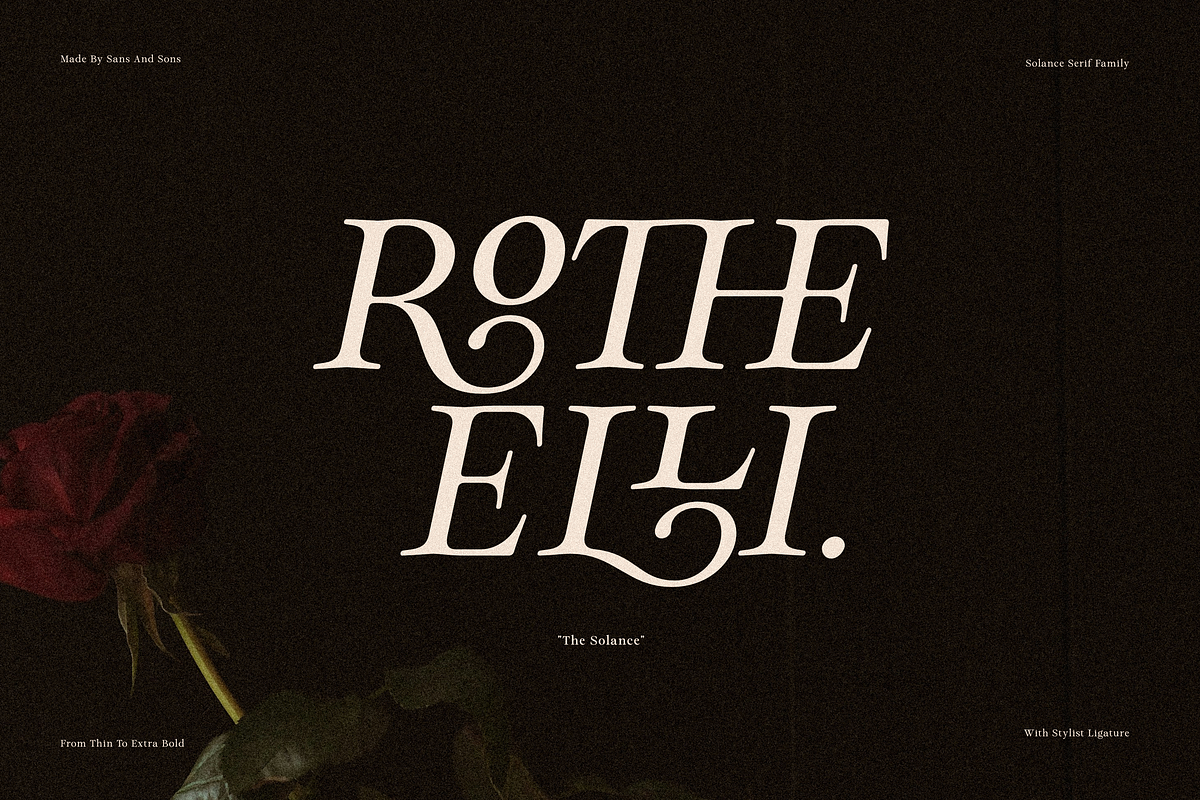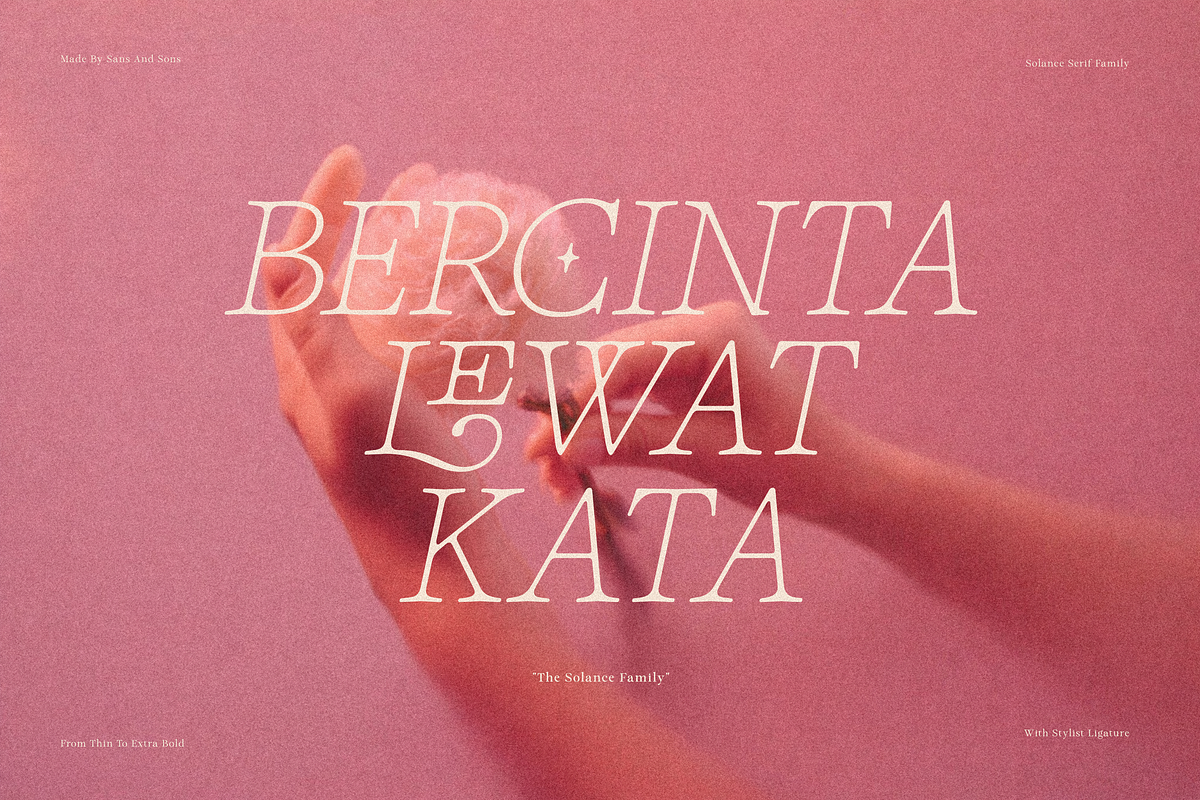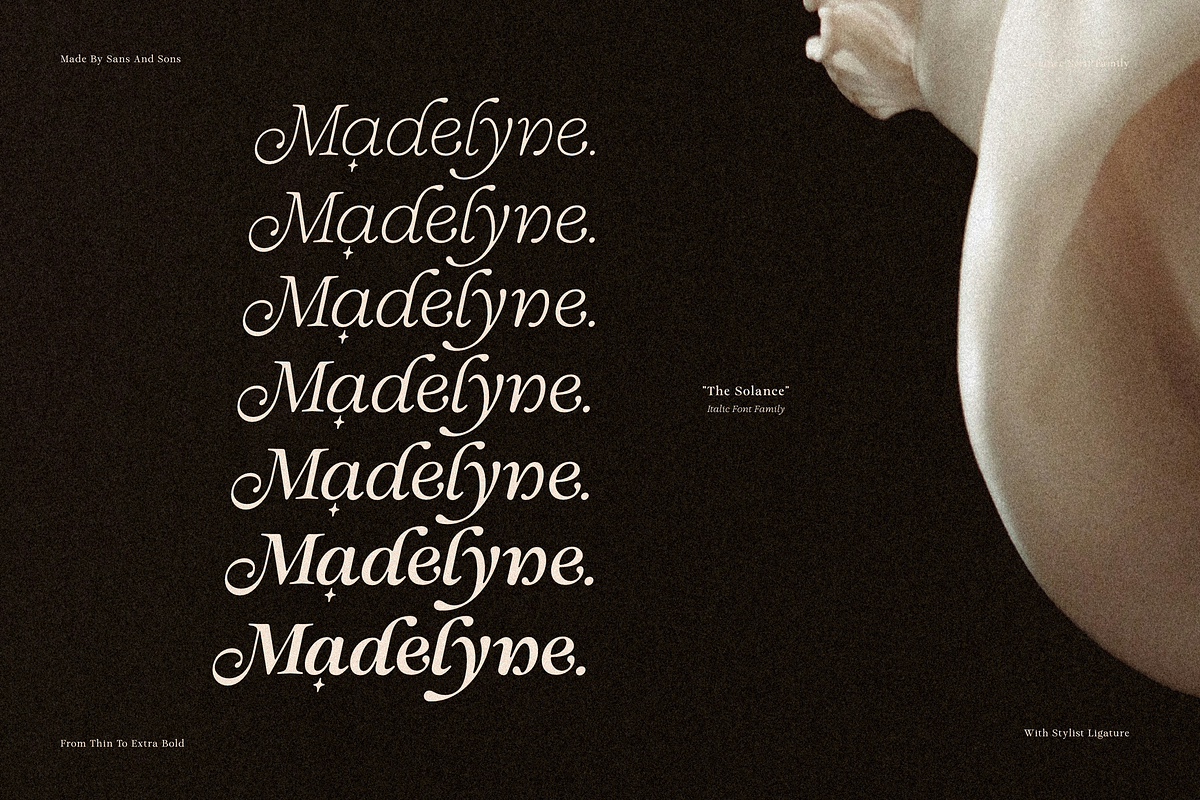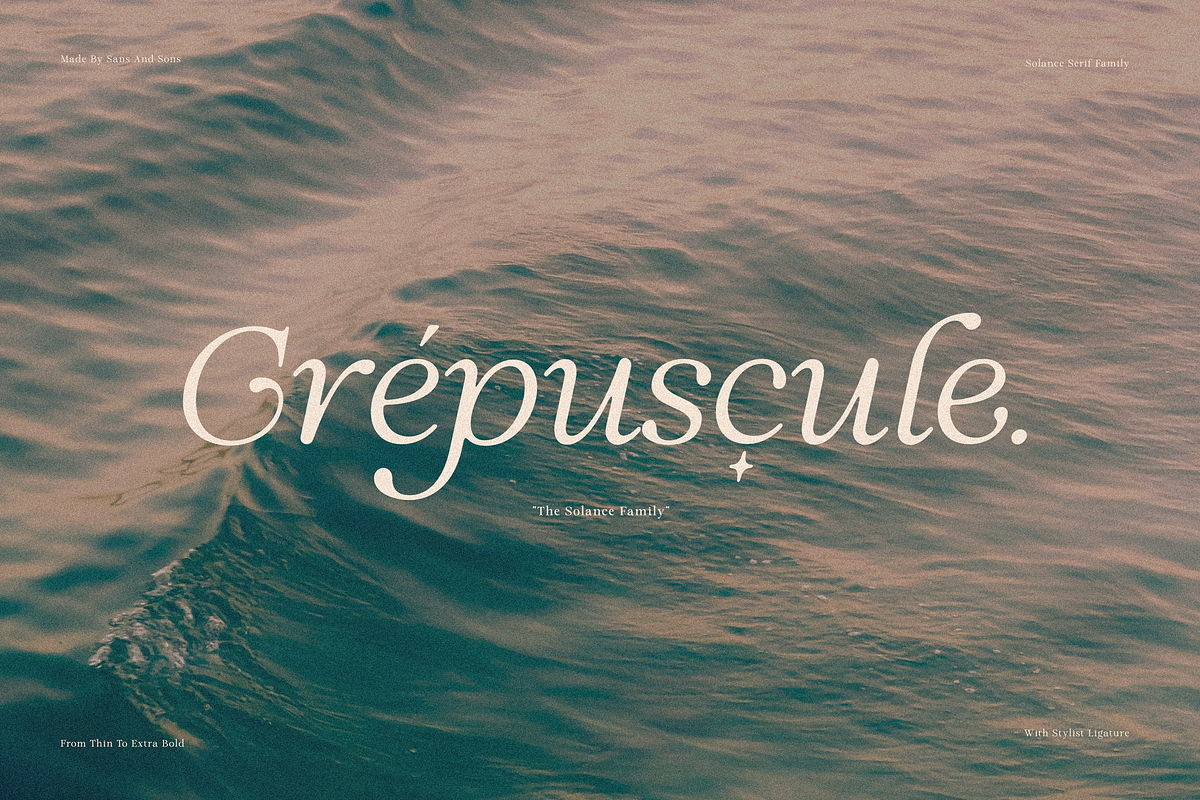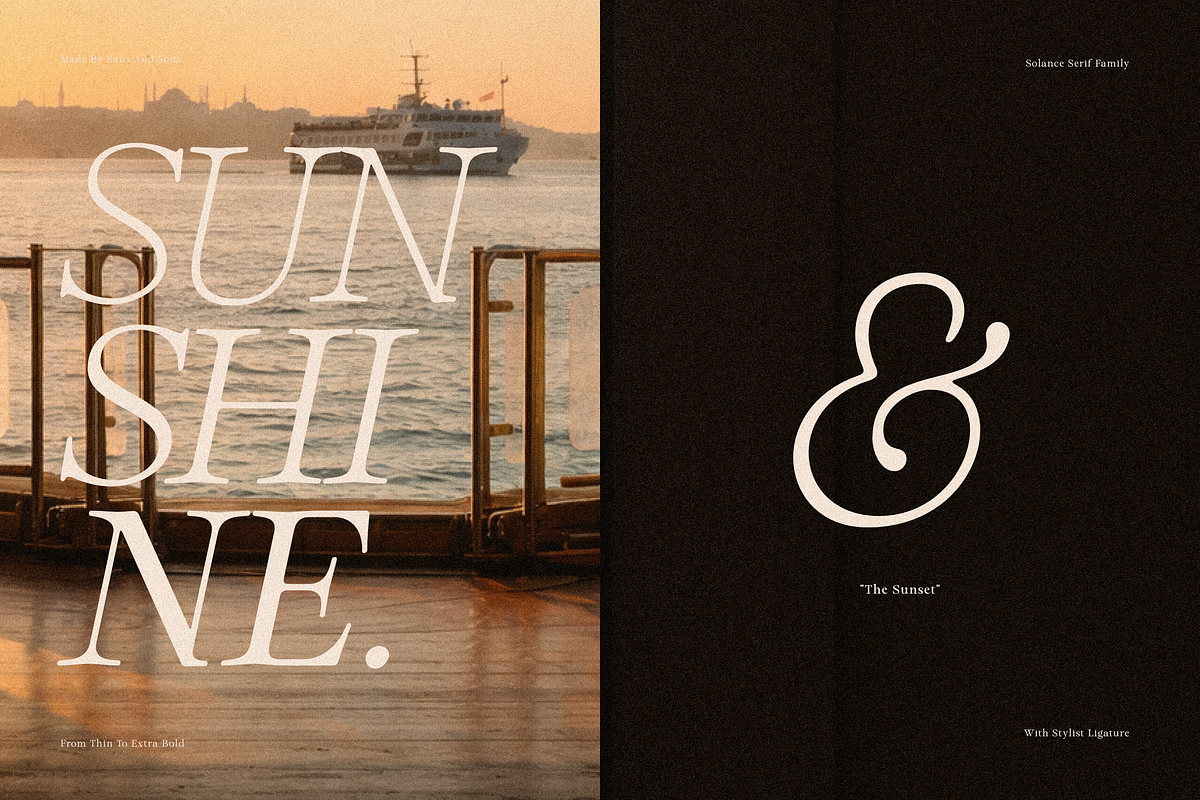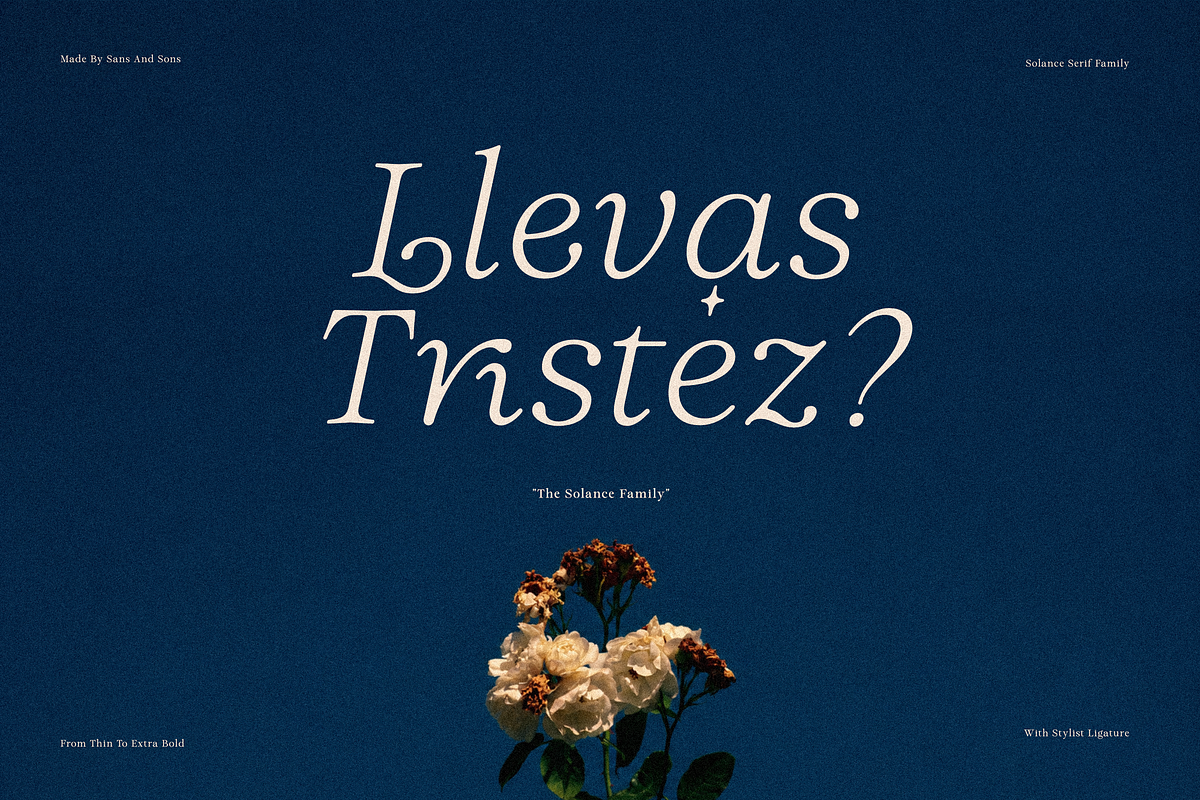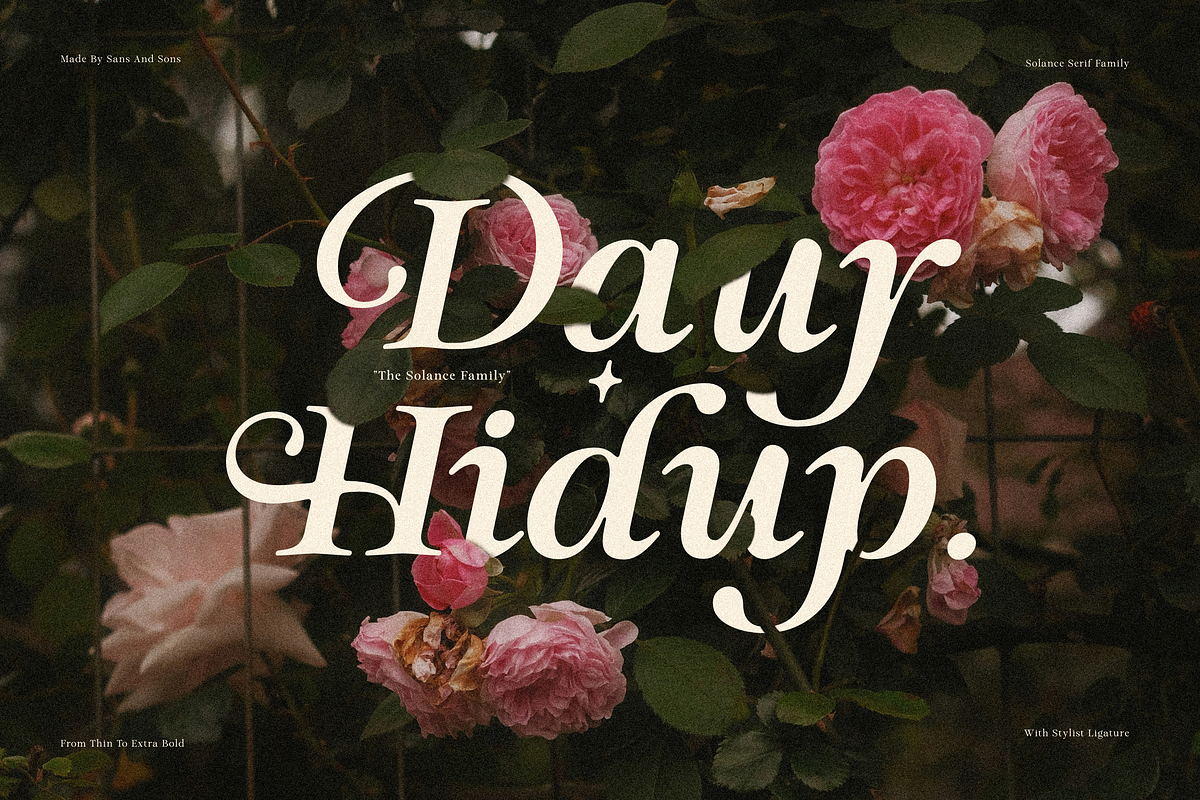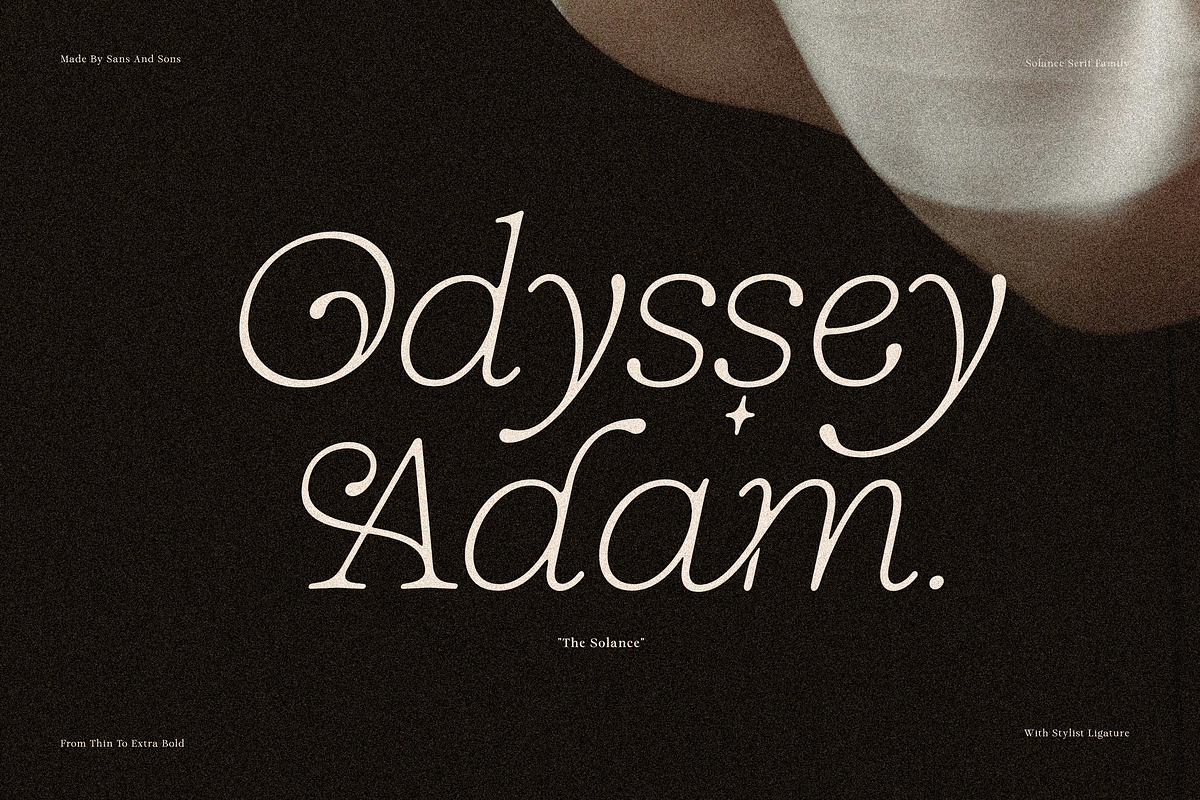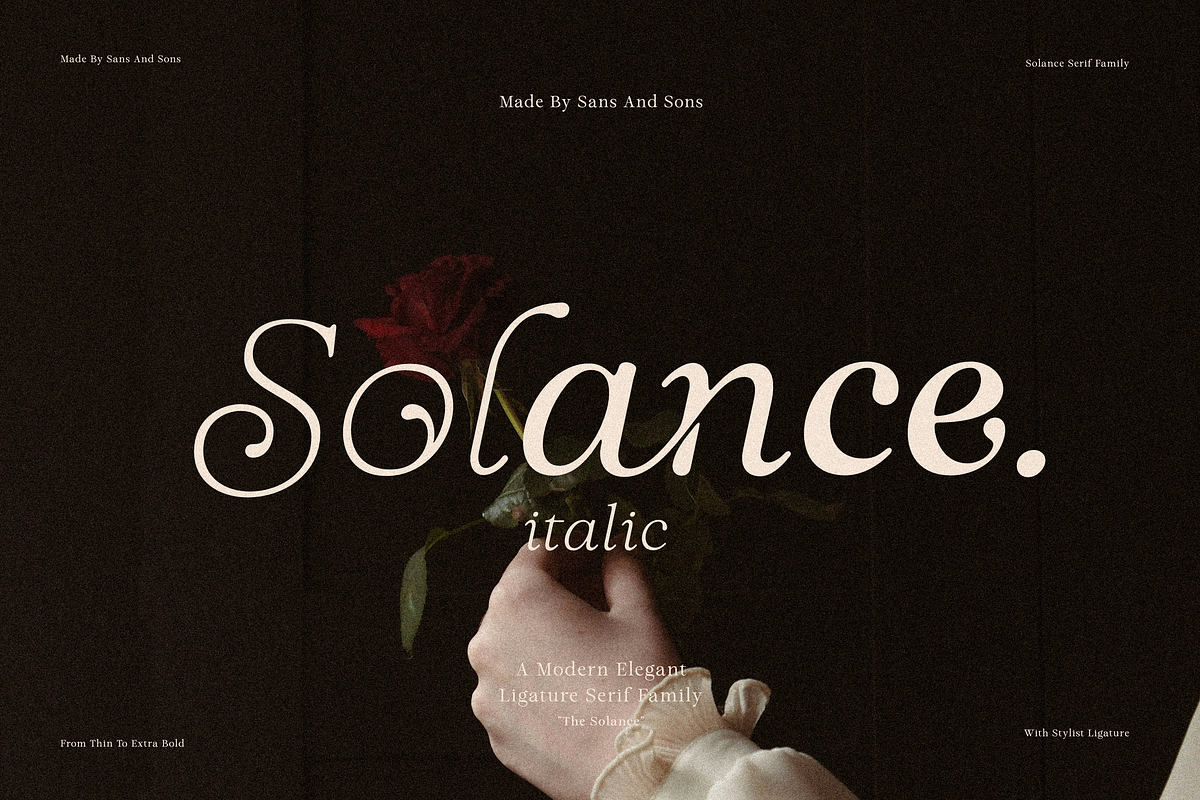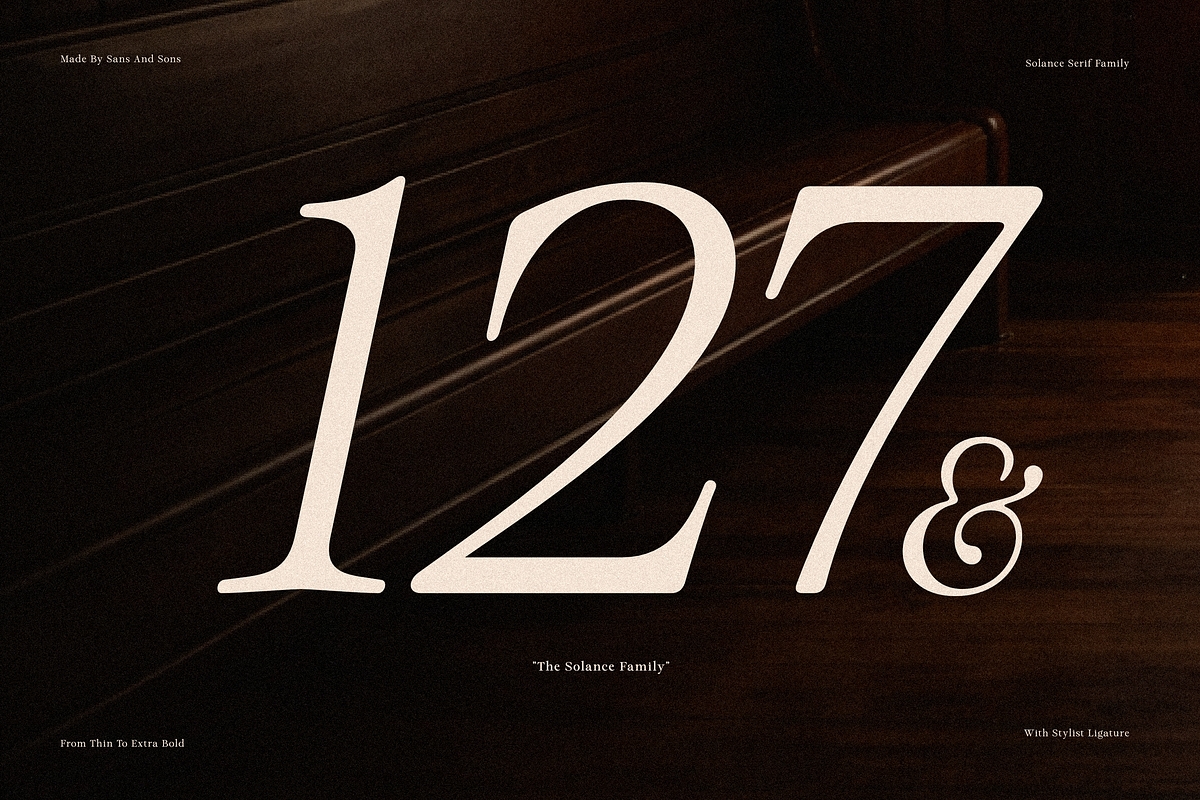
Solance Italic Family
The Solance Italic – Elegant Serif Font Family
The Solance Italic is an elegant serif font family designed to bring graceful movement and timeless sophistication to every design. Featuring beautifully crafted italic forms with refined contrast and flowing curves, it creates typography that feels expressive, luxurious, and effortlessly elegant.
With 7 carefully crafted weights, from Thin to ExtraBold, The Solance Italic offers the flexibility to create distinctive visual identities while maintaining harmony across every composition. Perfect for adding emphasis, elegance, and personality to both classic and modern designs.
**Why You'll Love The Solance Italic **
• Elegant italic serif with graceful, flowing letterforms • 7 versatile weights from Thin to ExtraBold • Refined contrast for a sophisticated and luxurious look • Perfect for branding, editorials, logos, packaging, invitations, fashion, and beauty projects • Ideal for both print and digital design
Whether you're crafting a luxury brand, designing an elegant editorial, or creating sophisticated packaging, The Solance Italic brings movement, refinement, and timeless character to every composition.